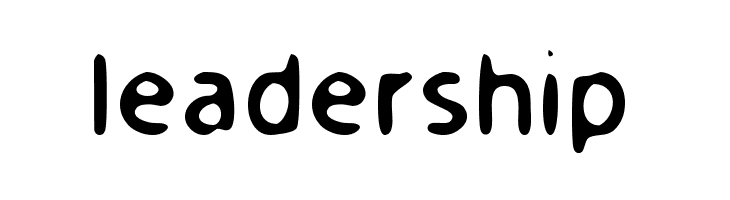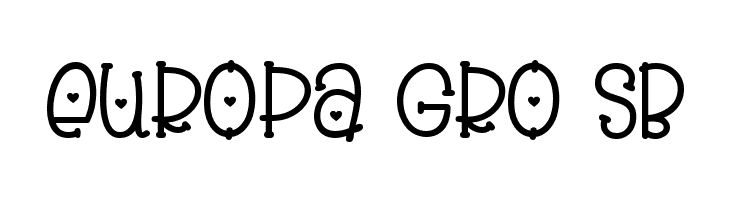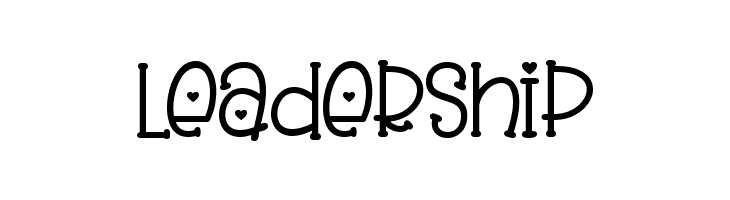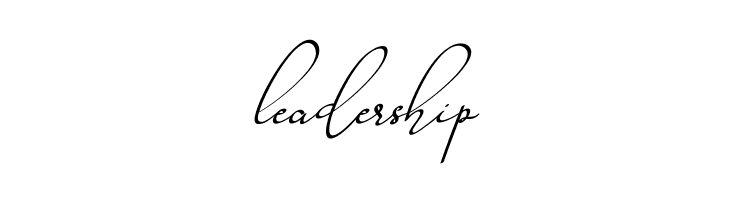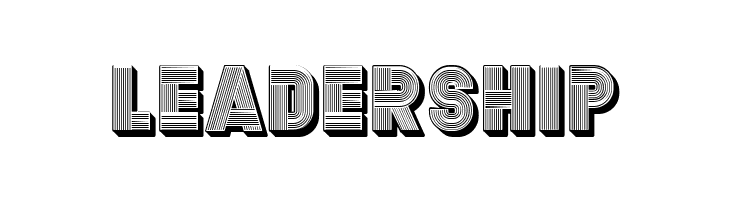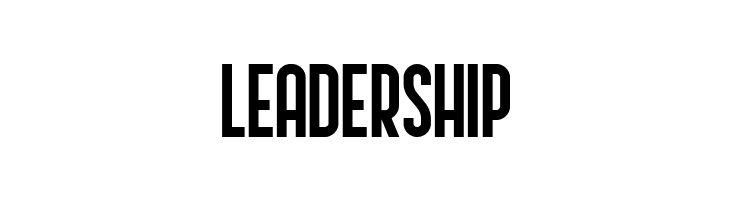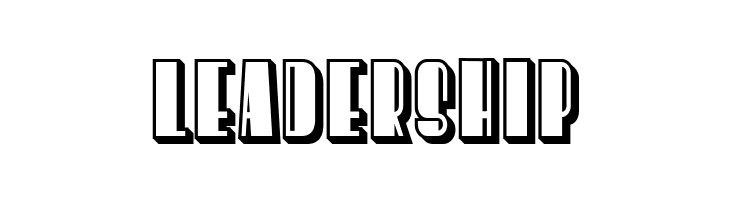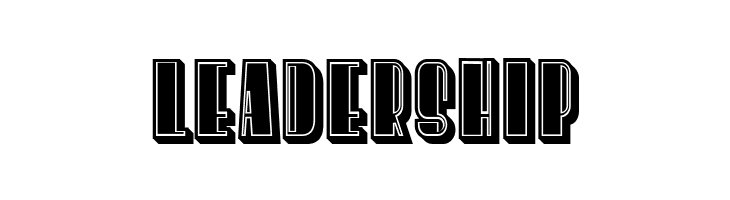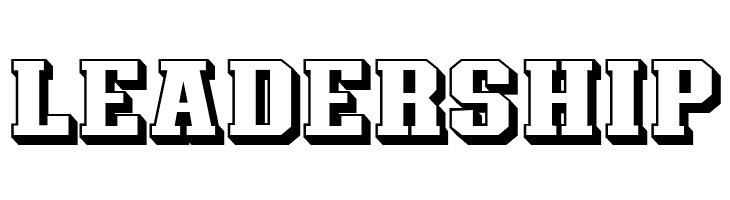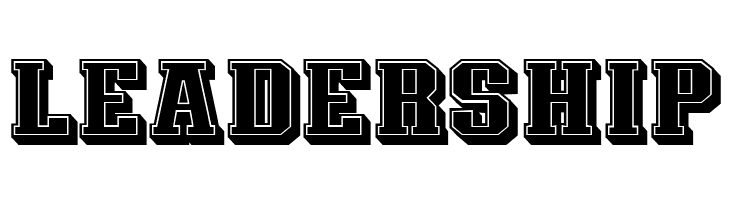
A bold, italic font with tight spacing and a modern, dynamic style.
A bold, tall, and narrow font with a strong geometric structure.
A playful, industrial-themed font where each character is a uniquely designed screw.
A bold, italic font with a modern, digital aesthetic and sharp angles.
A bold, glitch-inspired font with a modern, distressed look.
A bold, decorative font with a layered, striped design for a modern, dimensional look.
A modern, italic font with sleek curves and sharp angles, exuding a futuristic style.
A modern, geometric font with bold, angular shapes and consistent stroke width.
A playful, casual handwritten font with fluid strokes and a friendly appearance.
A bold, dynamic font with a three-dimensional effect and strong visual impact.
A playful, rounded font with bold, smooth curves and a hand-drawn feel.
A playful, handwritten font with rounded edges and a casual, friendly style.
A playful, bold font with rounded, bubbly characters and a whimsical style.
A bold, outlined font with a three-dimensional effect and geometric style.
A bold, decorative font with a unique gradient effect and thick outlines.
Bold, blocky font with a 3D shadow effect, ideal for impactful designs.
Bold, blocky font with a three-dimensional, collegiate style.
A bold, hollow, geometric font with strong outlines and blocky characters.
A bold, decorative font with a 3D effect and dotted texture.
Geometric, decorative typeface with dot accents and a sci-fi feel.
A playful, bold, and cartoon-like font with rounded, hand-drawn characters.
A sophisticated script font with elegant, flowing strokes and artistic flourishes.
Playful skull and crossbones icon font with bold, circular glyphs.
A futuristic, geometric font with bold, stylized characters and star accents.
A playful, decorative font with rounded edges and whimsical elements.
A dynamic, angular font with a bold, slanted design.
A bold, hand-drawn font with a playful and artistic style.
A modern, geometric sans-serif font with a clean and balanced design.
A bold, angular font with a futuristic and edgy design.
A bold serif font with a classic yet modern style, ideal for impactful designs.
A bold, italicized font with a modern and elegant style.